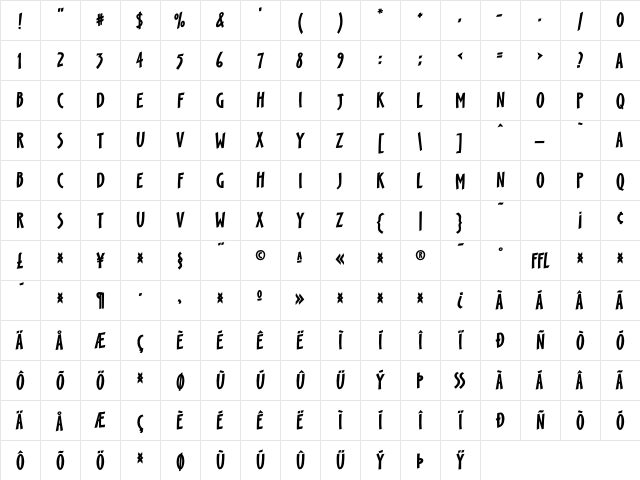
Scamp Fat Free Font
Scamp Fat
Style: Fat
Scamp Family
Scamp Fat
Design Context for Scamp
Scamp is a composed and adaptable typeface that performs quietly and consistently across a wide range of design contexts.